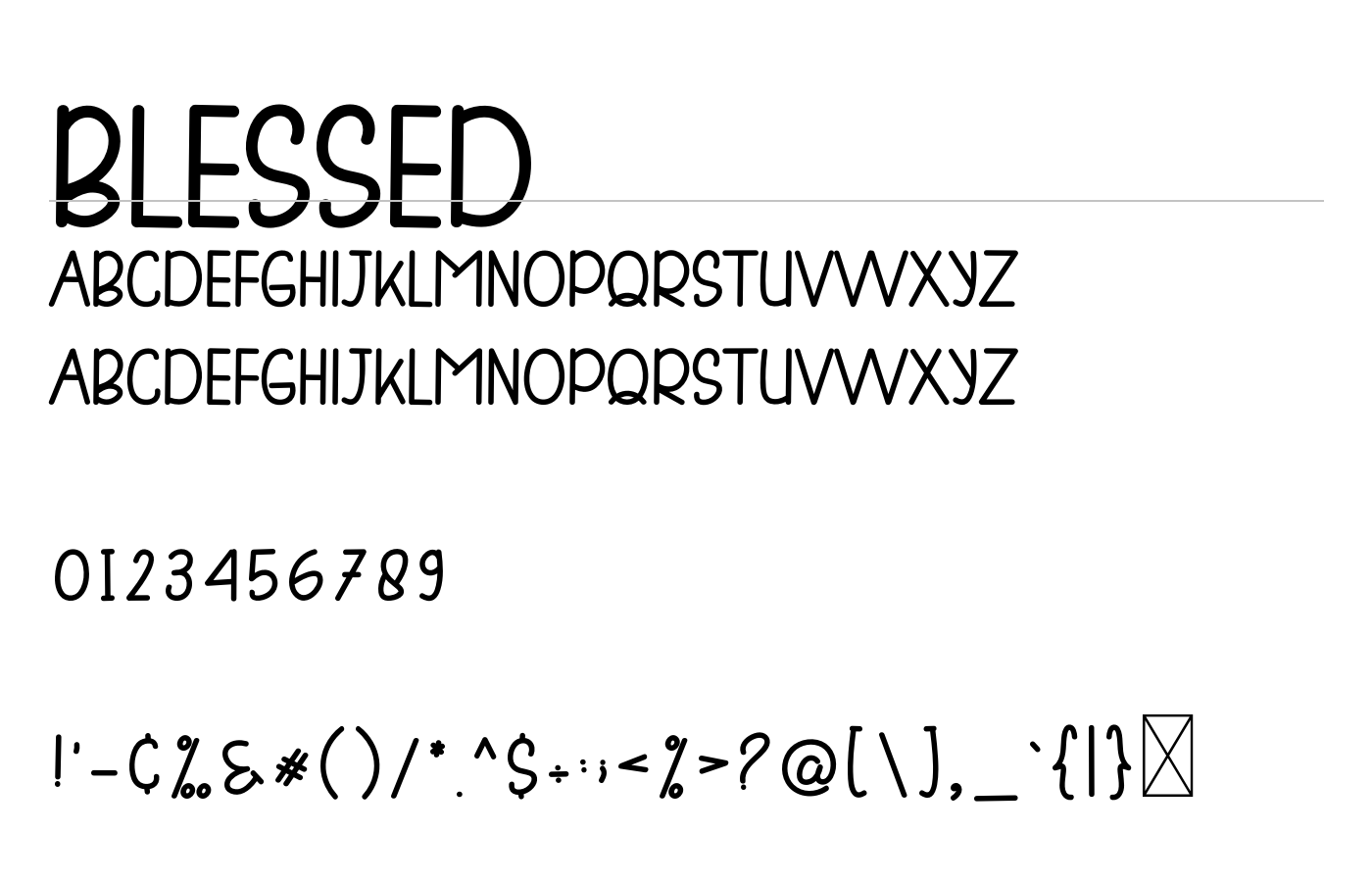
Blessed Font is a playful and casual sans serif typeface featuring rounded, hand-drawn letterforms with a light weight and moderate x-height. Its quirky curves and friendly style make it perfect for informal designs, children's books, or creative branding that aims to feel approachable and fun. This font works well in headlines, logos, or any project seeking a warm, personal touch without sacrificing readability.
Blessed Font
About Blessed Font